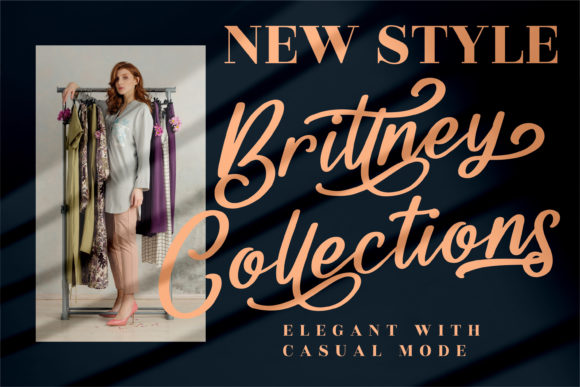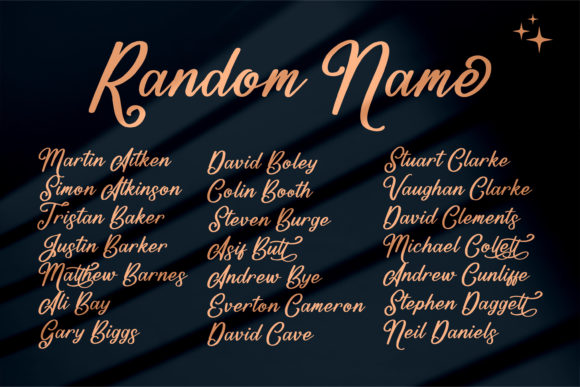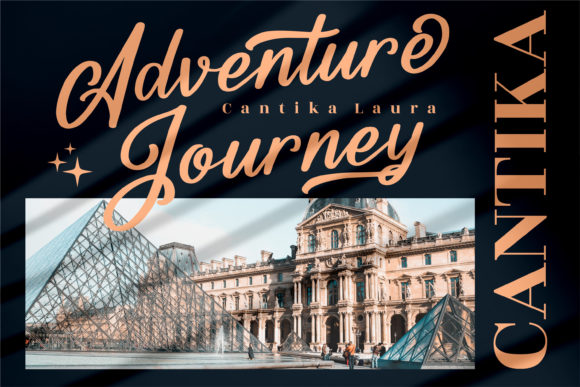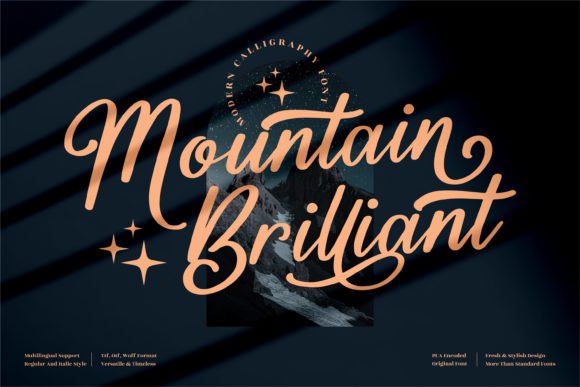
Introduction to Mountain Brilliant Font
Mountain Brilliant is a romantic and sweet calligraphy typeface with characters that dance along the baseline.
It will add a luxury spark to any design project that you wish to create This font is PUA encoded which means you can access all of the amazing glyphs and ligatures with ease.
Key Features of Mountain Brilliant Font